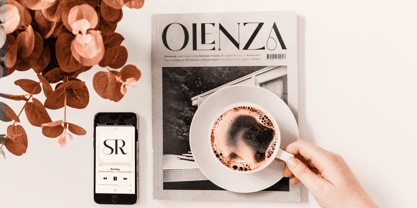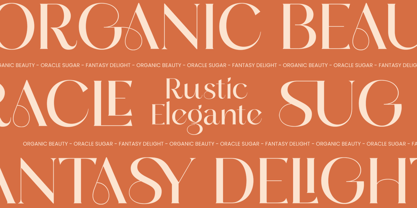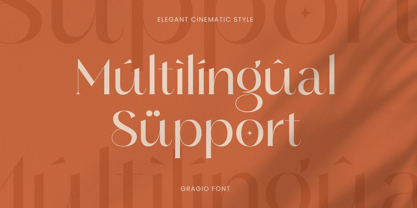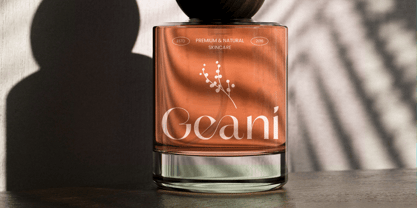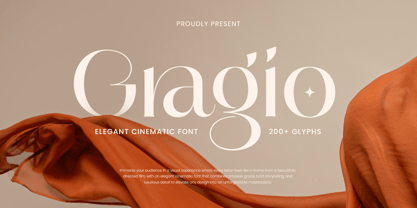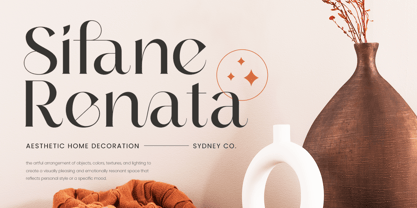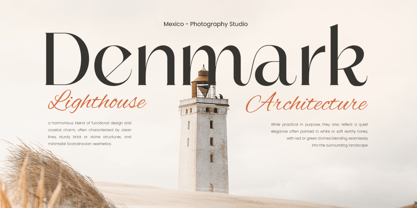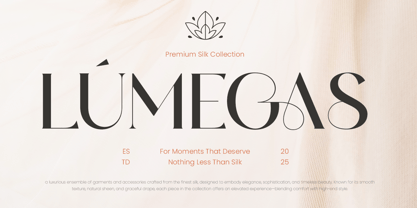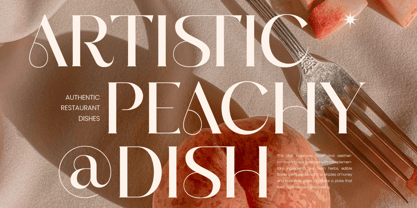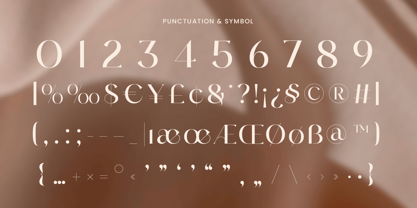
Gragio - Elegant Cinematic Font
Gragio is an elegant serif font that brings cinematic beauty to your design. With its graceful curves and high contrast strokes, Gragio captures the essence of luxury and sophistication—making it perfect for editorial layouts, fashion branding, film titles, and premium packaging.
Every character is drawn with refinement and drama in mind, allowing your words to feel elevated and powerful. Whether used in large headers or refined logotypes, Gragio delivers timeless impact with a modern touch.
Let your design speak with elegance and boldness through Gragio, the perfect font for classy and cinematic visual storytelling.
Gragio – Elegant Cinematic Font Features
Elegant serif with dramatic contrast
Ideal for fashion, film, branding, and editorial layouts
Punctuation, numbers, and symbols included
Uppercase and lowercase letters
OpenType features with stylish ligatures
Multilingual support for:
Afrikaans, Albanian, Asu, Basque, Bemba, Bena, Breton, Chiga, Cornish, Dutch, English, Estonian, Filipino, Finnish, Friulian, Galician, German, Gusii, Indonesian, Irish, Italian, Kabuverdianu, Kalenjin, Kinyarwanda, Luo, Luxembourgish, Luyia, Machame, Makhuwa-Meetto, Makonde, Malagasy, Manx, Morisyen, North Ndebele, Nyankole, Oromo, Portuguese, Quechua, Romansh, Rombo, Rundi, Rwa, Samburu, Sango, Sangu, Scottish Gaelic, Sena, Shambala, Shona, Soga, Somali, Spanish, Swahili, Swedish, Swiss, and more.
Let your design roll like film credits—stunning, bold, and unforgettable.